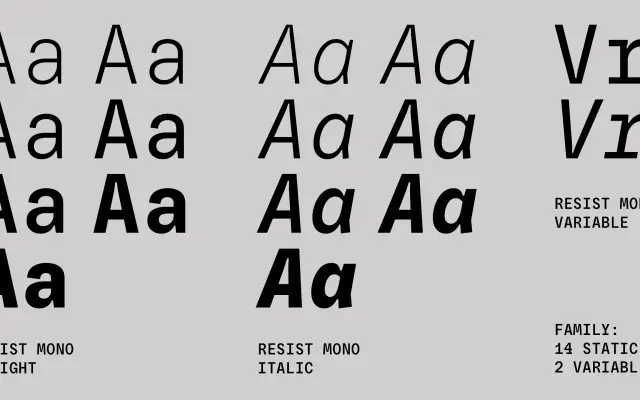
Resist Mono
Fontfabric · Eugene Tantsurin, Anna Remm · 2022
A monospaced sans-serif with deep inktraps and true italics, designed for code editors and technical design work.
Built as a monospaced companion to the Resist Sans family, it features deep inktraps and angled terminals that give the letterforms a sharp, contemporary character without sacrificing legibility. Seven weights run from Thin to Bold with matching true italics, plus variable font instances for both upright and italic axes. Broad multilingual coverage and an extensive OpenType feature set make it suitable across coding environments, UX interfaces and editorial projects.
A monospaced sans-serif with deep inktraps and angled terminals derived from the Resist Sans family, squarely placing it in the monospaced category with contemporary grotesque influences.